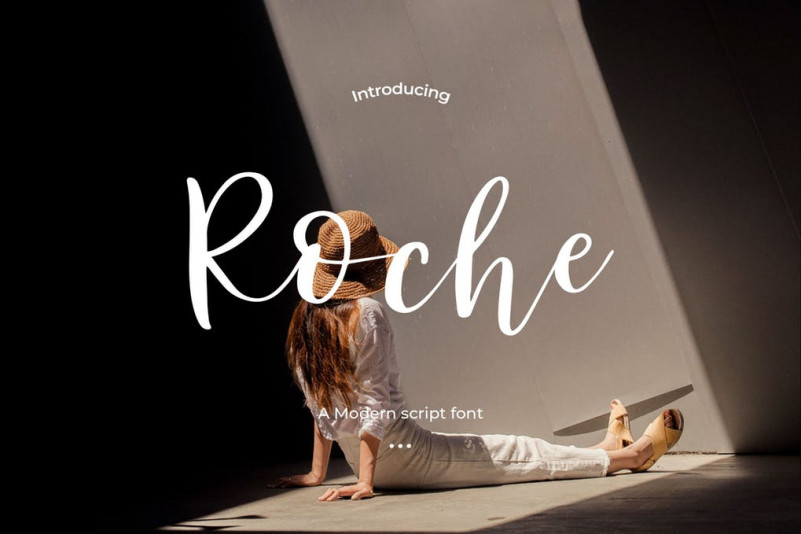
Roche Font
Every single letter has been creative carefully for making your text looks so chic. This font will perfect for many projects as photography, watermark, quotes, blog header, poster, wedding, branding, logo, fashion, apparel, letter, invitation, stationery, etc.